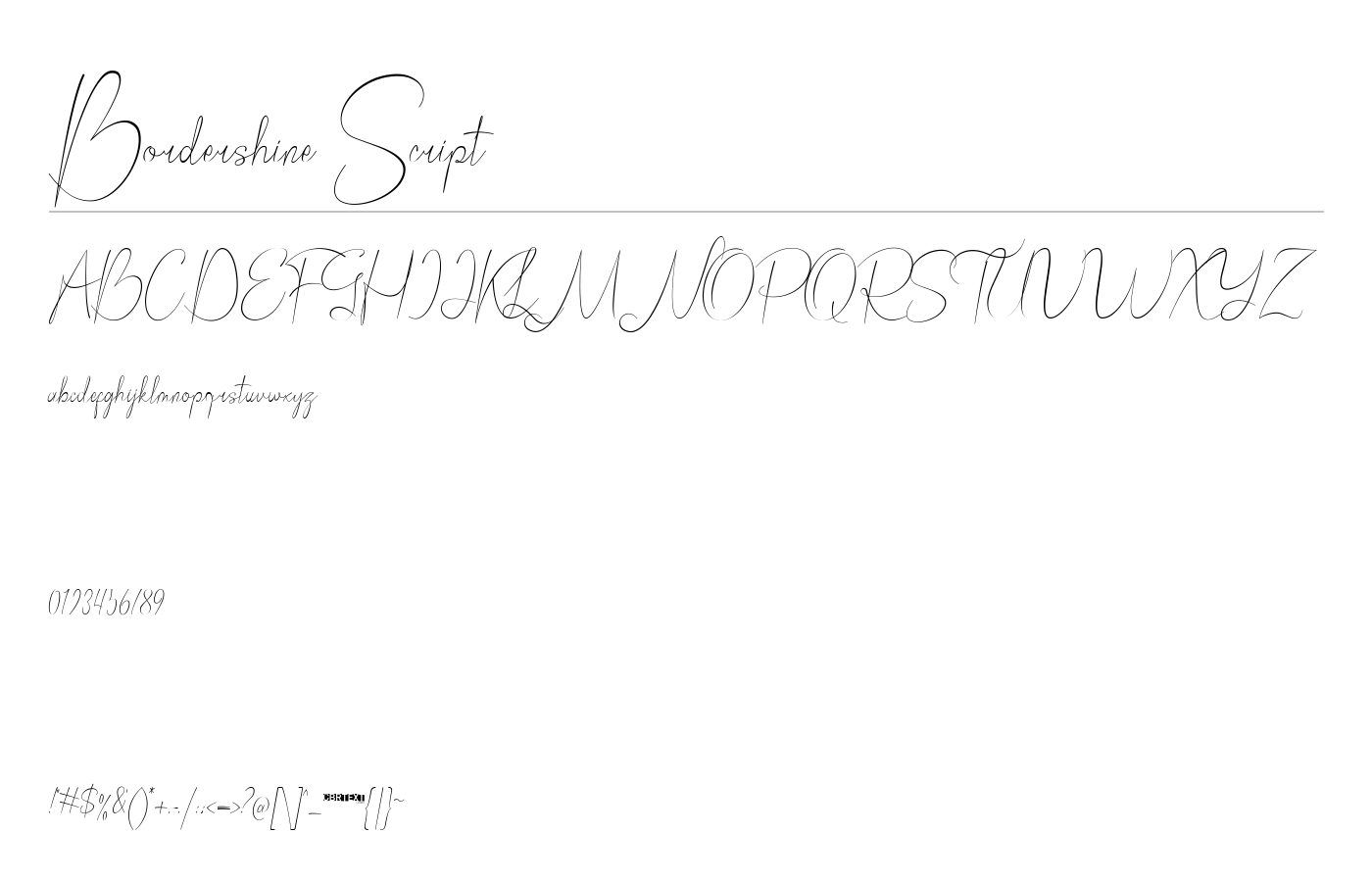
Bordershine Script is an elegant, fine-line script font with delicate, flowing strokes that evoke a sense of sophistication and grace. Its tall, slender letterforms and airy spacing make it perfect for luxury branding, wedding invitations, or stylish editorial headlines where a refined, handwritten feel is desired. This font works beautifully when used to add an artistic, fashionable touch without overwhelming the design.
Bordershine Script Font
About Bordershine Script Font